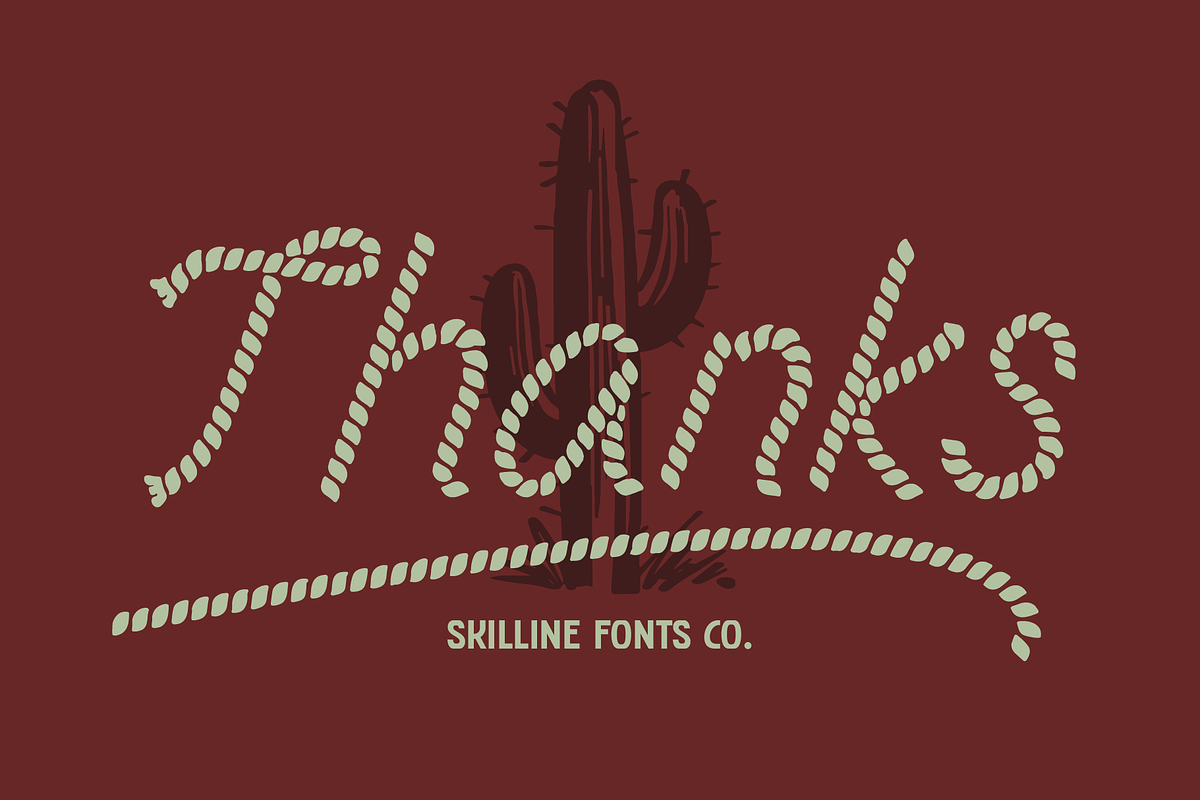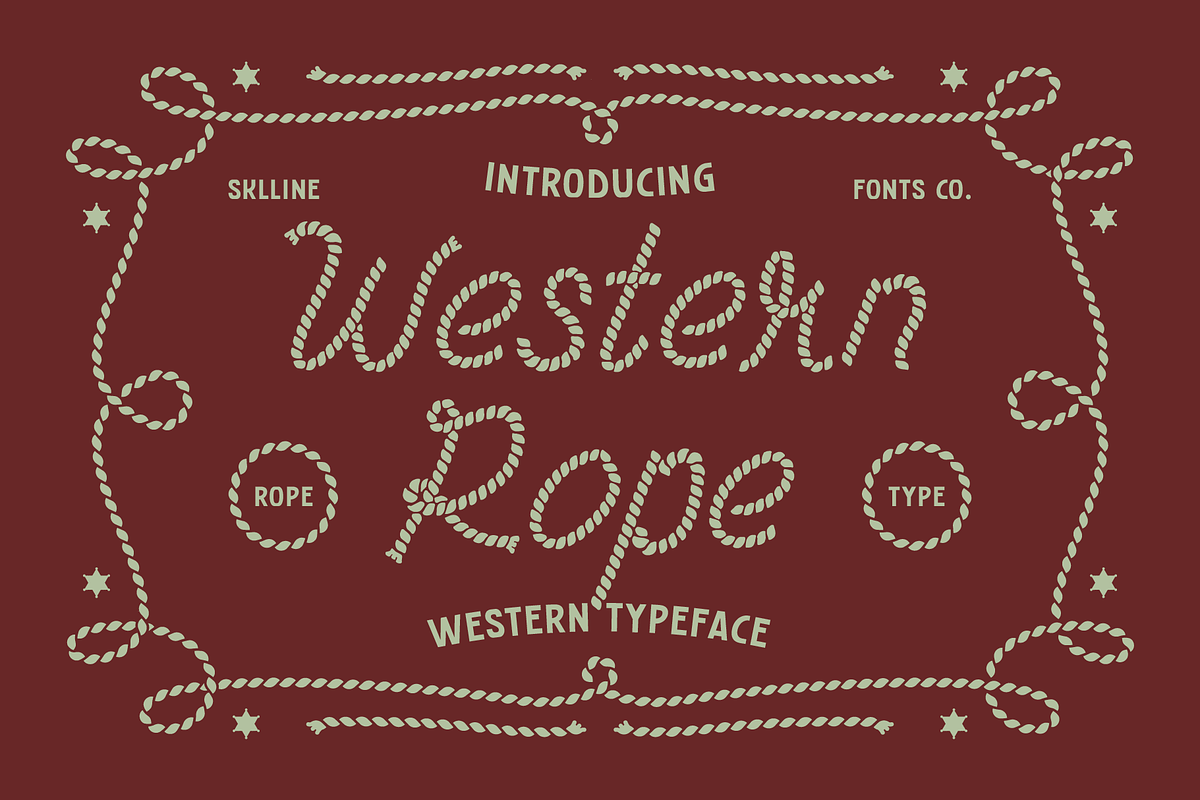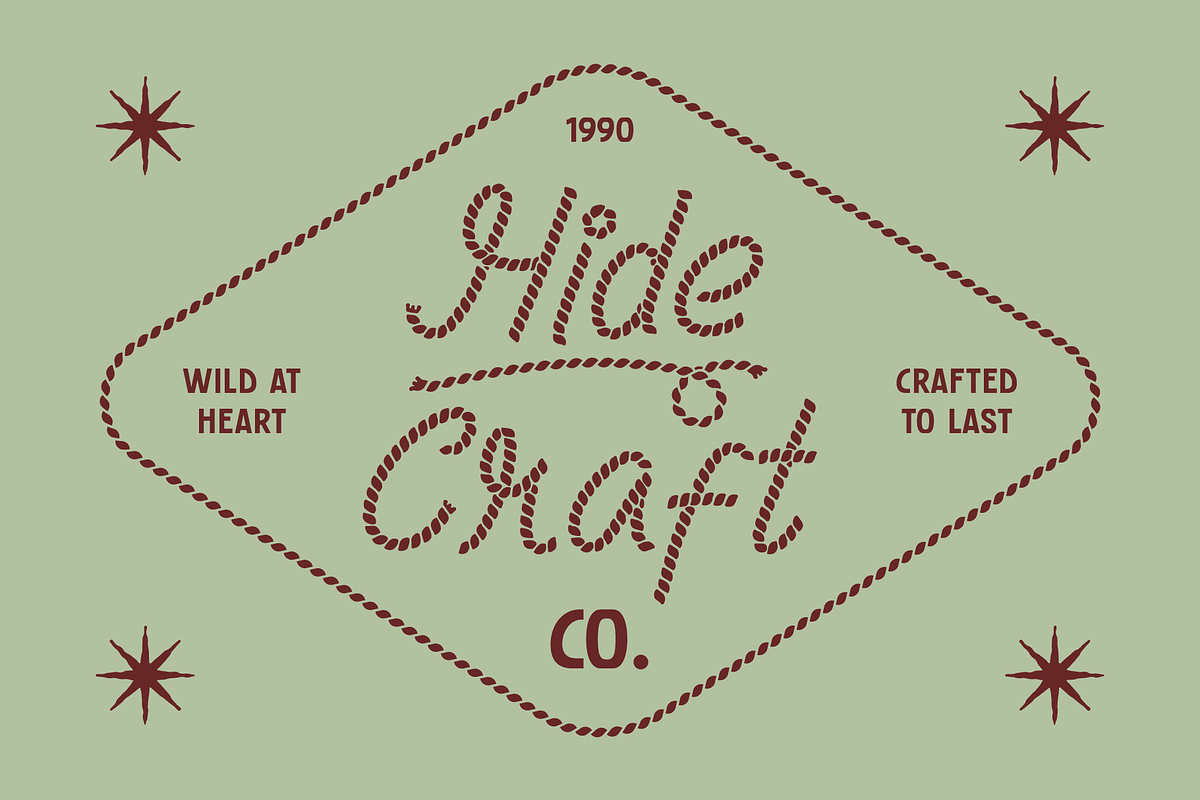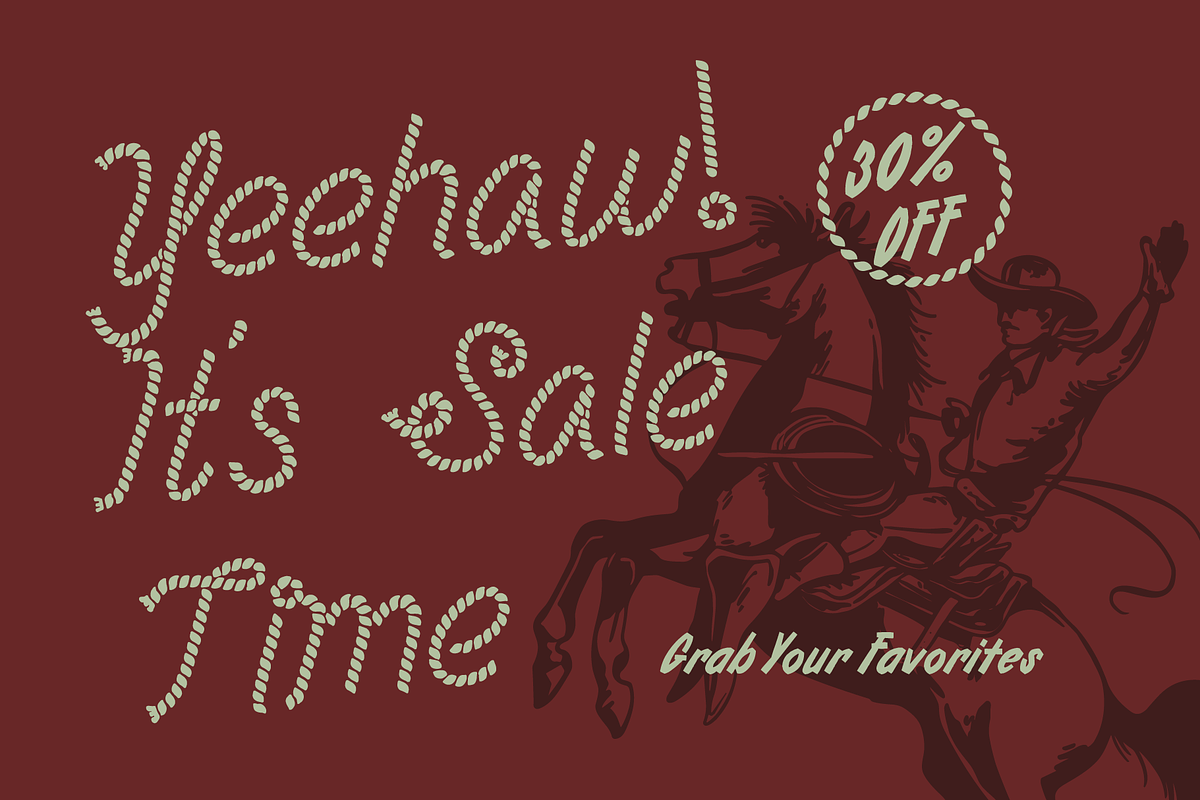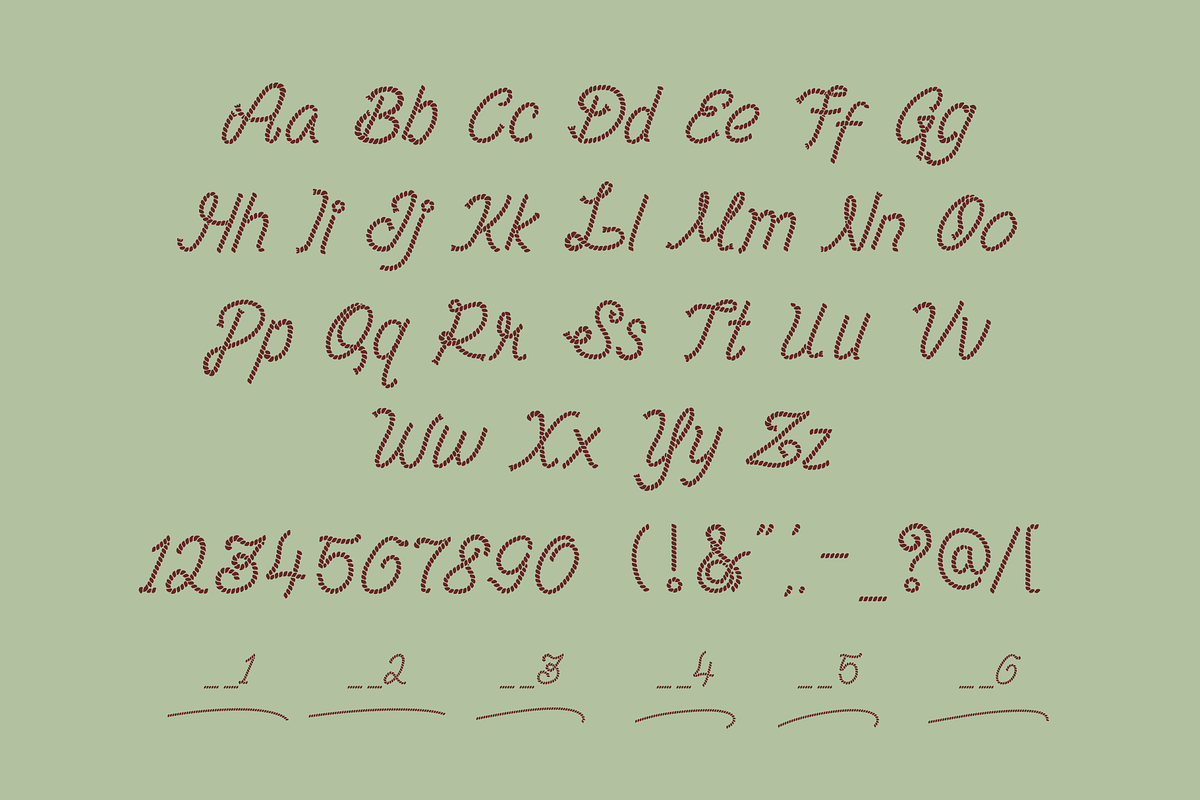
SFC Western Rope
Western Rope is a decorative script typeface inspired by traditional rope craftsmanship and classic Western lettering styles. Each character is constructed from intertwined rope-like forms, creating a distinctive textured appearance that combines handcrafted detail with flowing script movement.
Carefully designed with continuous curves, rounded contours, and consistent braided patterns, the typeface delivers a rustic and ornamental character while maintaining cohesive letterform structure. Its unique construction and nostalgic visual rhythm contribute to a warm, distinctive personality with strong decorative appeal.
* Decorative Western Script
* Braided Rope Texture
* Rustic Handcrafted Character
* Numerals & Punctuation
* Multi Language